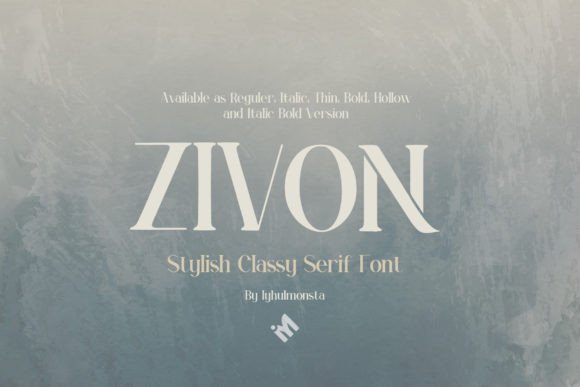
Unleash the elegance and class of Zivon - a captivating serif font that will transform your designs into works of art. Zivon's refined curves and sharp edges create a visual symphony that commands attention and leaves a lasting impression. Its timeless beauty makes it the perfect choice for a wide range of creative projects, from branding and packaging to editorial design and beyond.
With its versatility, Zivon effortlessly adapts to diverse styles and concepts. Whether you seek a classic and sophisticated look or a modern and edgy vibe, Zivon seamlessly integrates into your vision. The font's clean lines and crisp details lend a touch of luxury and sophistication to any project, making it the ideal choice for creating high-end designs that exude professionalism and elegance.
Experience the joy of effortless creativity as Zivon's intuitive design allows your ideas to flow freely. Its smooth, flowing characters make it a dream to work with, ensuring that your design process is as enjoyable as the final product. Zivon is a font that inspires, captivates, and empowers, turning your creative dreams into tangible realities.
With Zivon, you're not just downloading a font - you're unlocking a gateway to a world of creative possibilities. Its versatility and timeless appeal make it a must-have tool for any designer seeking to make a lasting impact. Let Zivon be your creative companion, guiding you to new heights of design excellence.